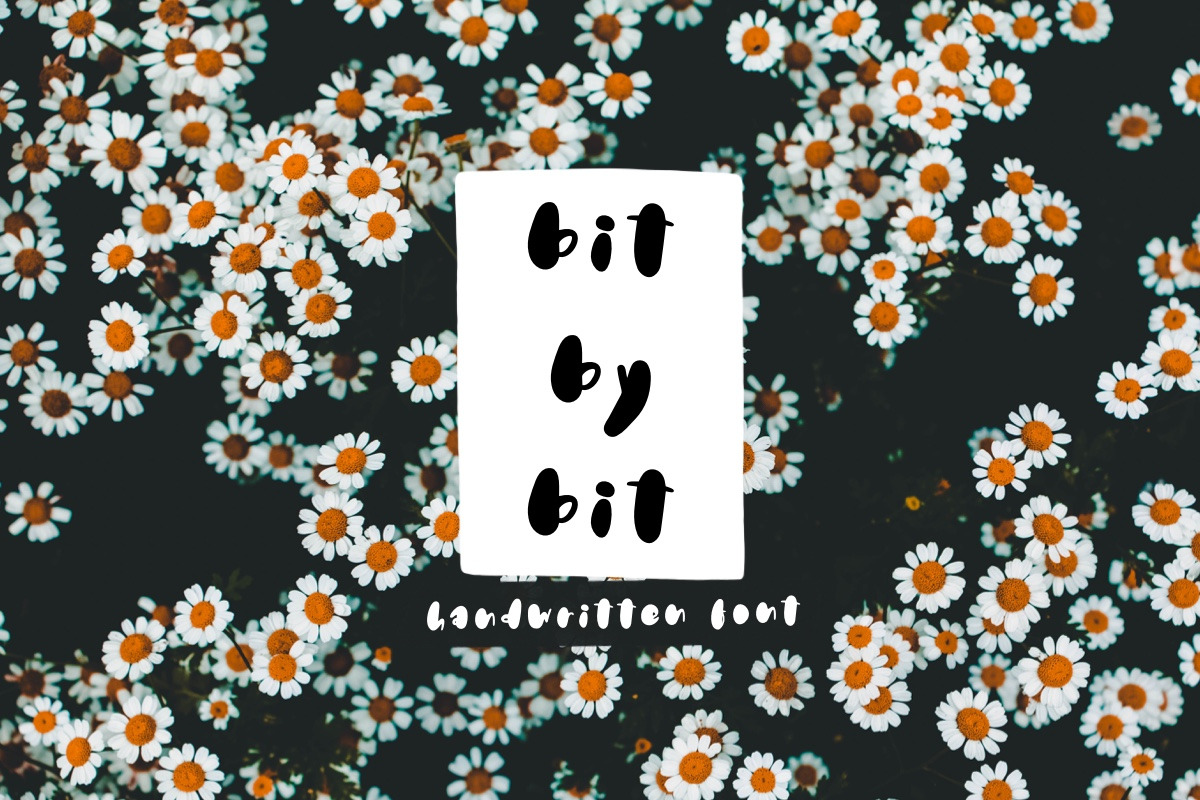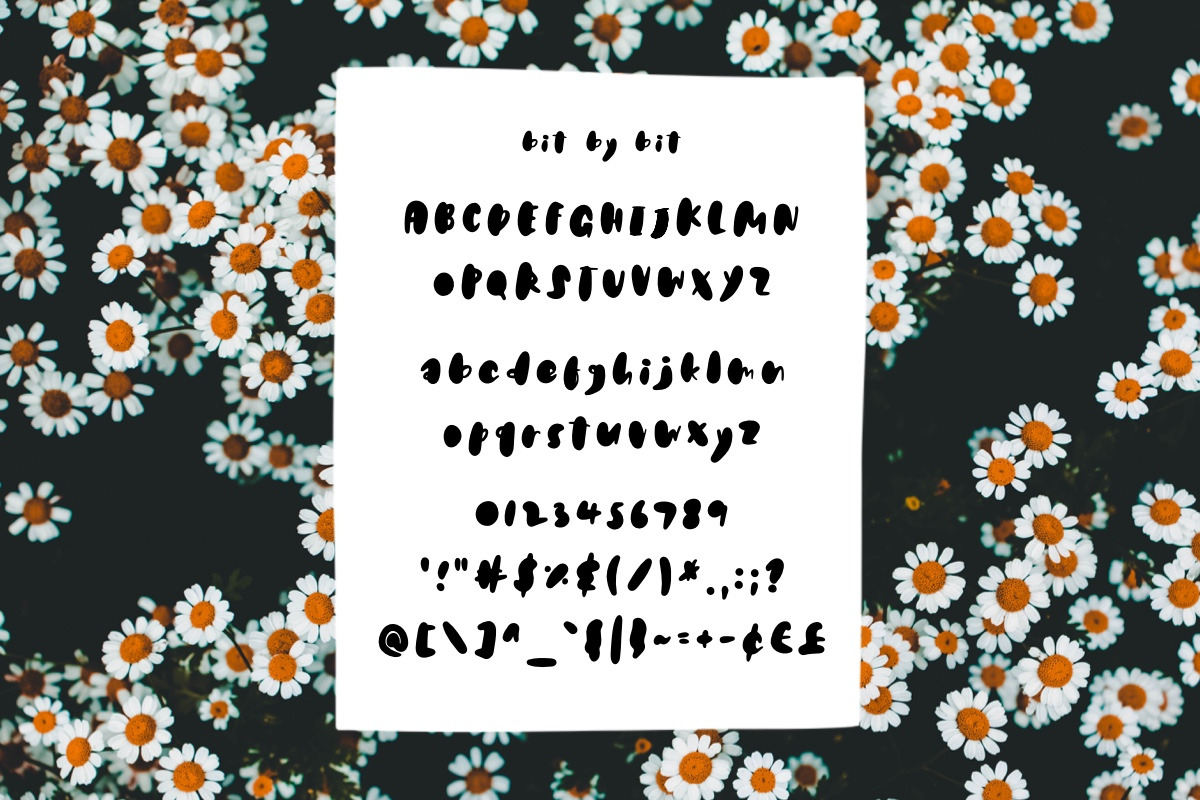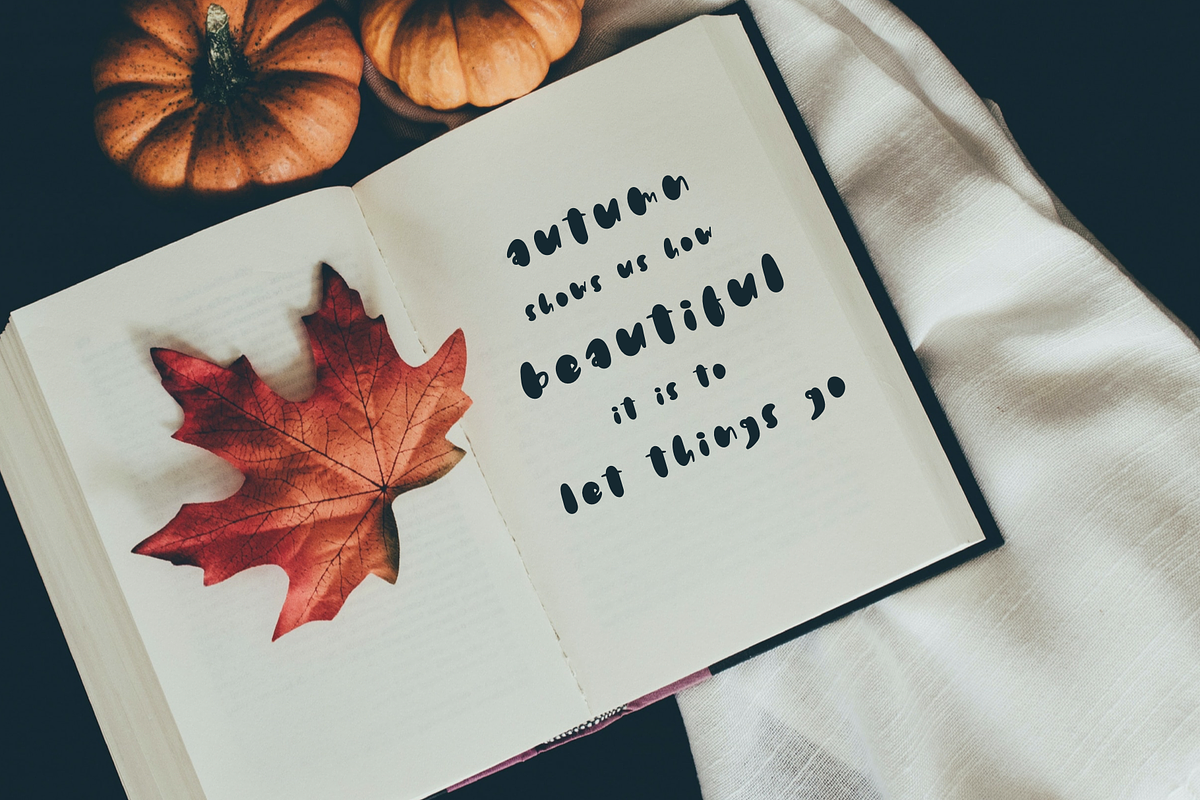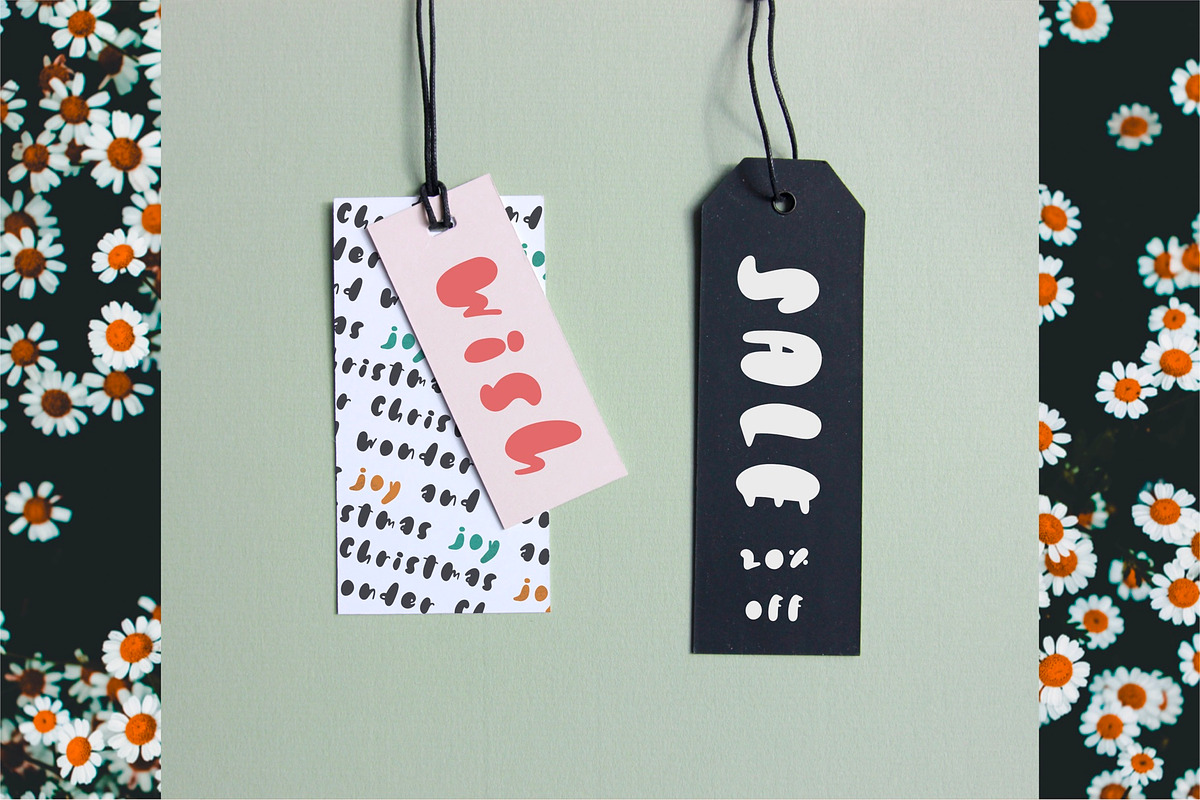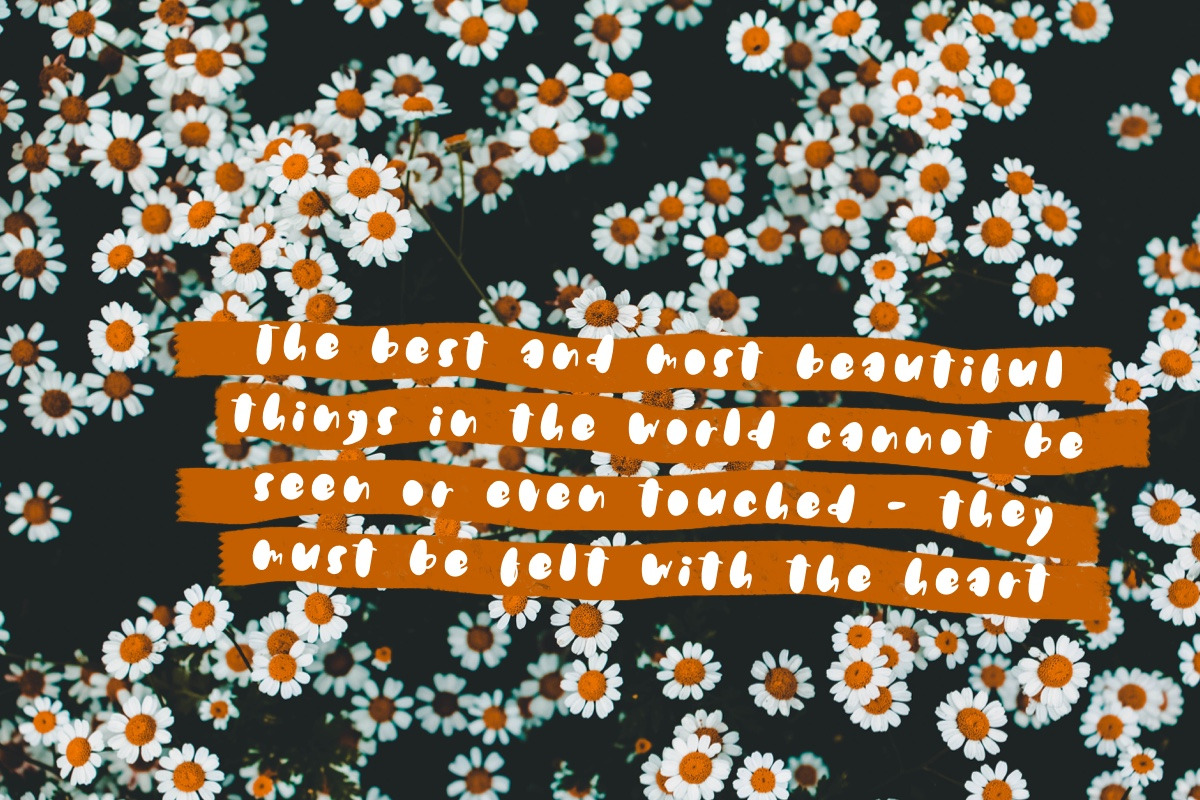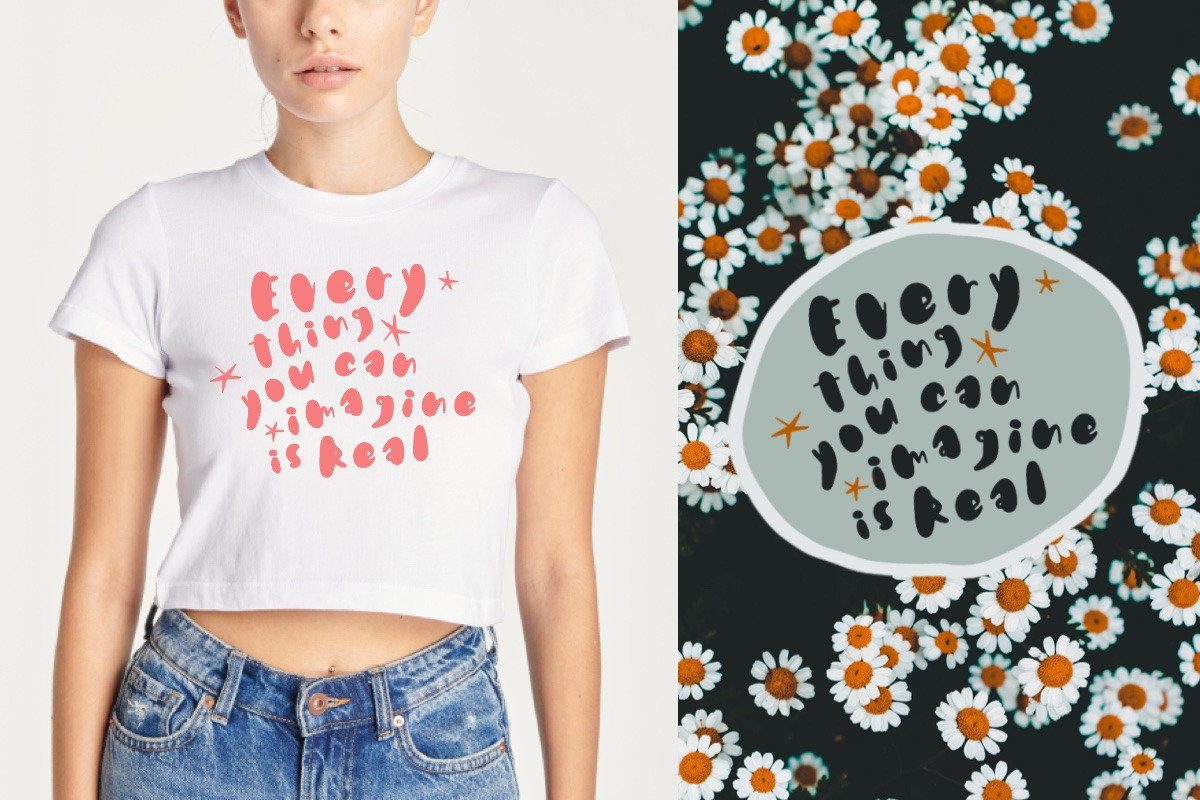
Bit by Bit handwritten font
Bit by Bit, a cool and casual handwritten font (English only). You can use this font in various projects - blog posts, digital planner, invitations, greeting cards, planners, photo albums, decorations and much more. Thank you :)